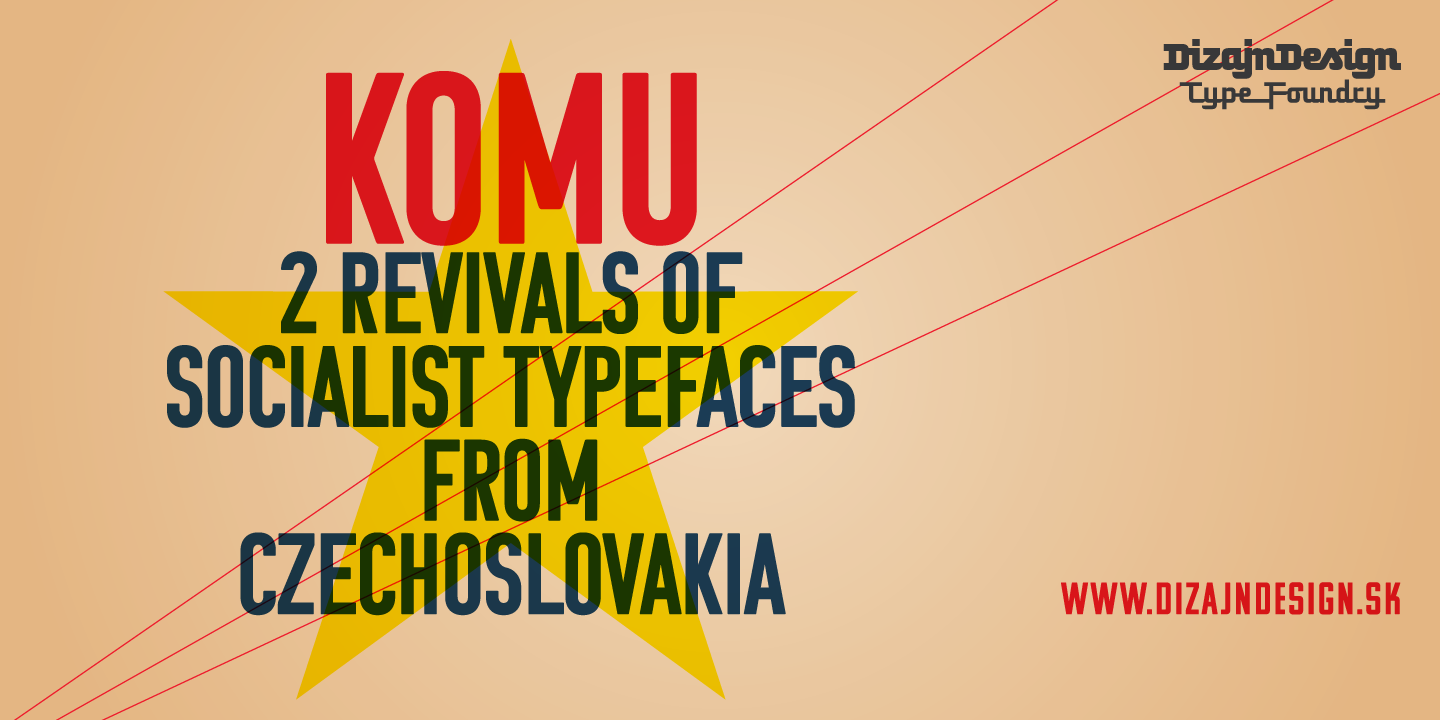
The Komu Font is an excellent choice for projects that demand a modern, geometric, and highly legible sans-serif aesthetic with a touch of approachable friendliness. It’s perfectly suited for app interfaces, tech company branding, clean website designs, infographics, children's educational materials, and any design that benefits from a clear, straightforward, and contemporary typeface. Its balanced and open letterforms make it ideal for conveying a sense of simplicity, efficiency, and clarity.
What makes Komu Font so exciting is its exceptional readability and clean, modern appeal. It features well-defined, somewhat rounded letterforms and consistent spacing, ensuring outstanding clarity across various applications, from large headlines to small body text. This font carries a sense of approachability and professionalism, making your content feel both current and easy to digest. It’s a versatile workhorse that provides a solid, unobtrusive foundation for any typographic system, allowing your message to shine through with a contemporary and friendly vibe. Its geometric precision combined with a hint of softness makes it highly adaptable.
The Komu Font family is typically comprehensive, offering a good range of weights and styles to provide flexibility for designers. You can expect variations from Light to Regular, Medium, and Bold, often accompanied by complementary italic versions for each weight. This family allows for effective typographic hierarchies, enabling precise control over emphasis and visual balance within your designs. Some versions might also include condensed styles or specialized numerals to further expand its utility in diverse design scenarios.